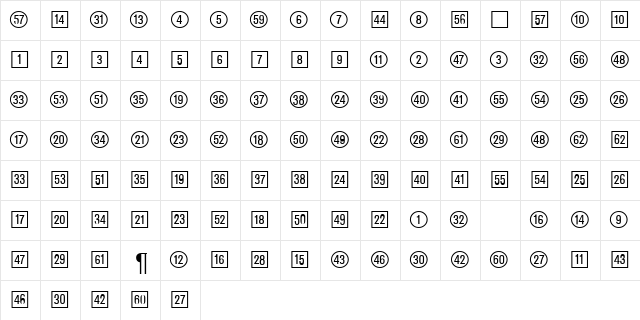
CatalogNumbers DB Regular
Design Context for CatalogNumbers DB Typeface
CatalogNumbers DB is a composed and adaptable typeface that performs quietly and consistently across a wide range of design contexts.